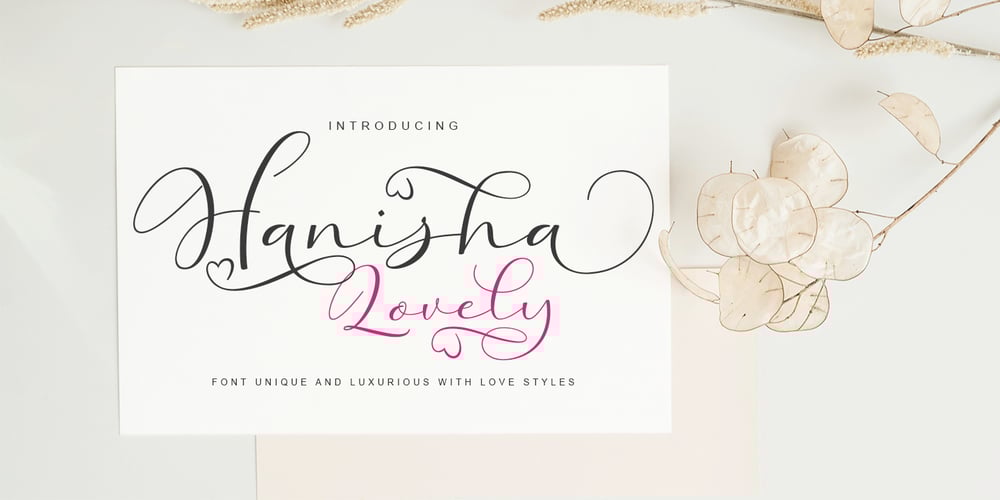
Hanisha Lovely
Hanisha Lovely font
Hanisha Lovely Font Family was designed by Kurniadi Saputra and published by Cooldesignlab. Hanisha Lovely contains 1 styles and family package options. Hanisha Lovely – a modern calligraphy font designed with skill and care with strokes of love. Perfect for greeting cards, branding materials, business cards, shirt mockups, quotes, posters, and more!Hanisha Lovely includes a complete set of international uppercase letters, numbers, punctuation, and binders. All lowercase letters including the start and end of the attack. The script is coded with Unicode PUA, which allows full access to all additional characters without any special design software.Mac users can use Letter Book, and Windows users can use Character Map to view and copy additional characters to include in your favorite text editor / application.Thank you and have a nice day.CooldesignLab,